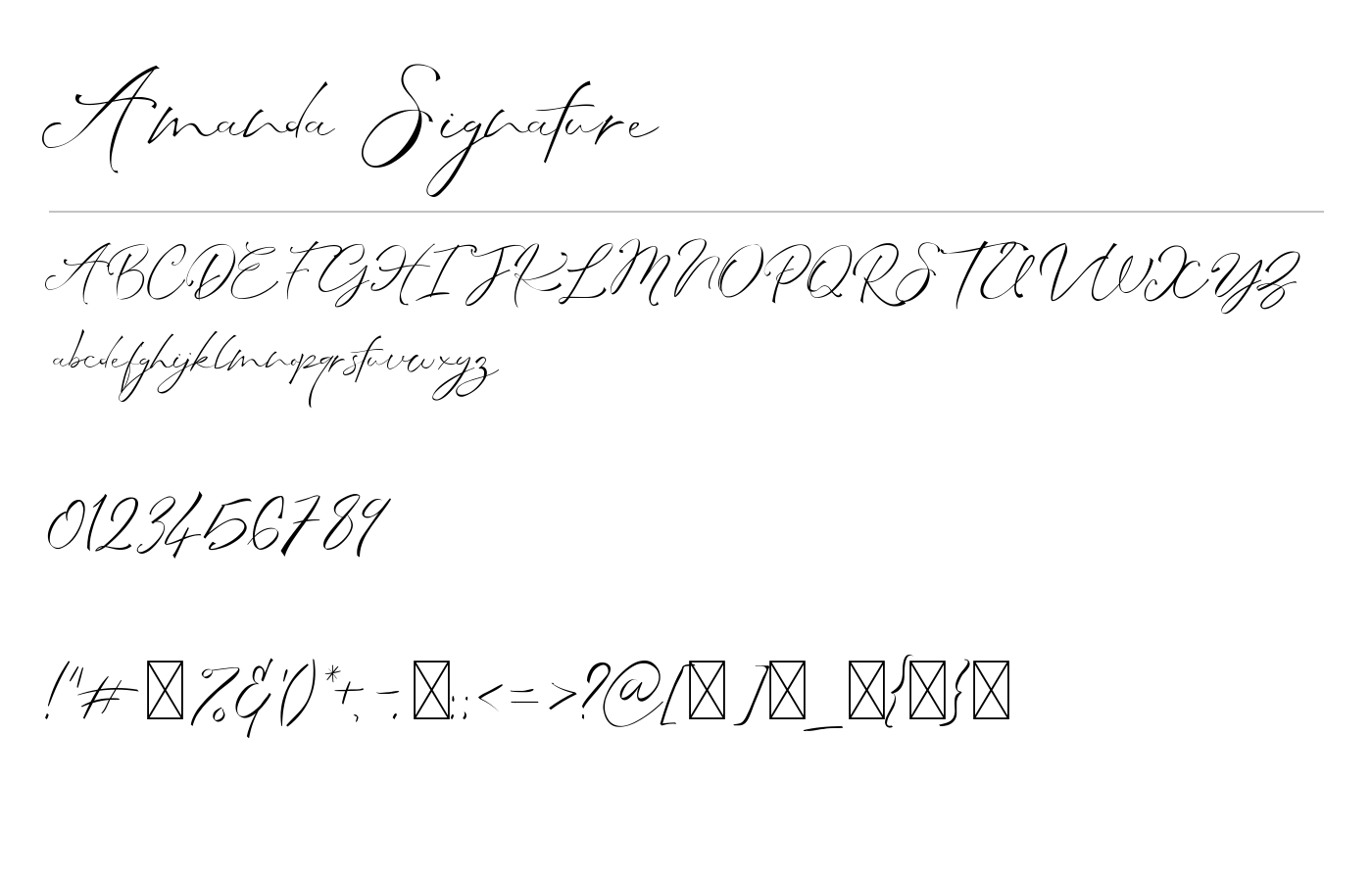
Amanda Signature Font is a delicate, elegant script typeface that mimics a flowing, personal handwriting style with fine, graceful strokes and a natural, airy feel. Its slender letterforms and smooth connections make it perfect for luxury branding, invitations, and sophisticated logo designs where a touch of modern elegance and individuality is desired. This font works beautifully in designs that need a refined, intimate, and stylish touch.
Amanda Signature Font
About Amanda Signature Font